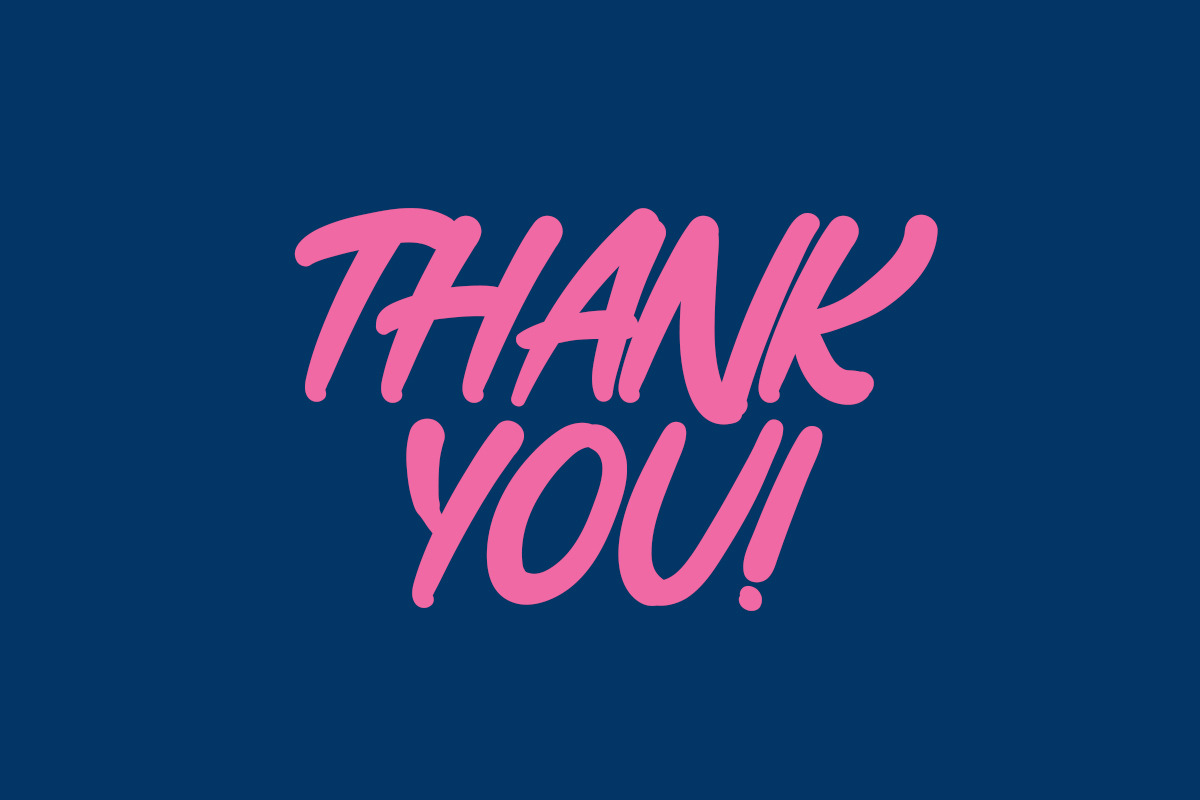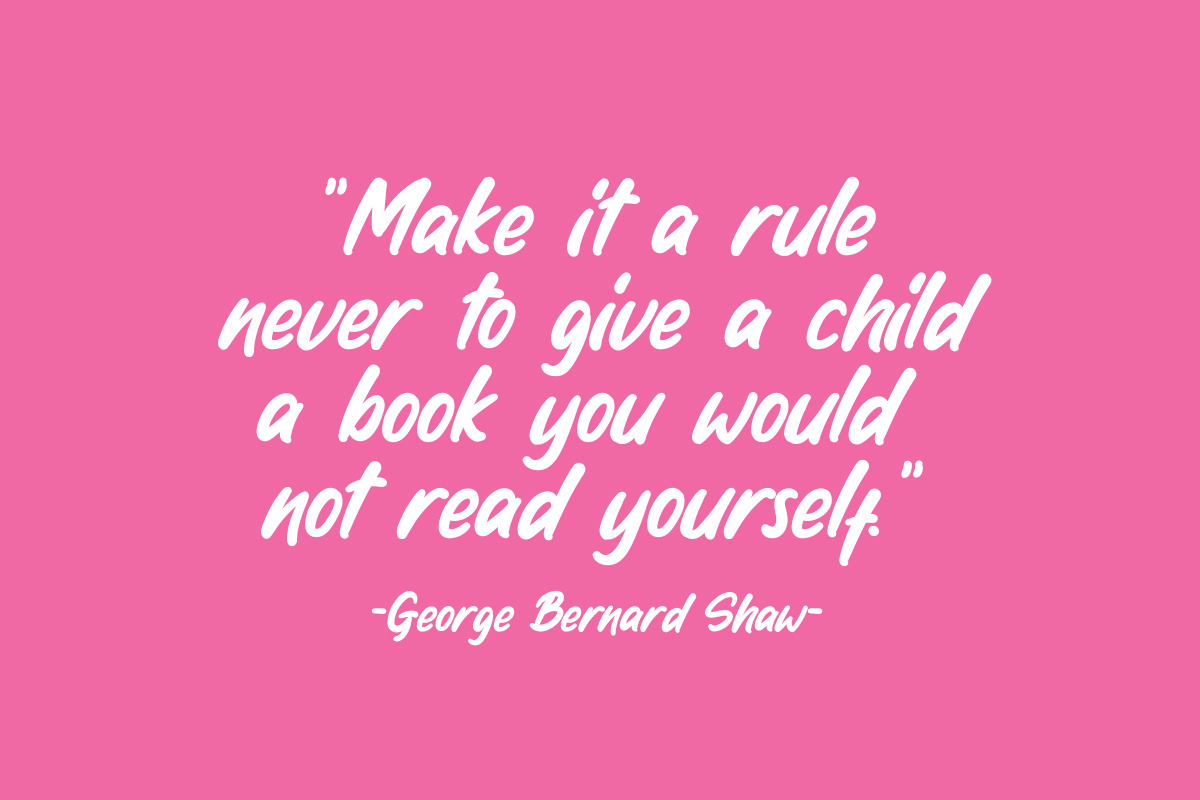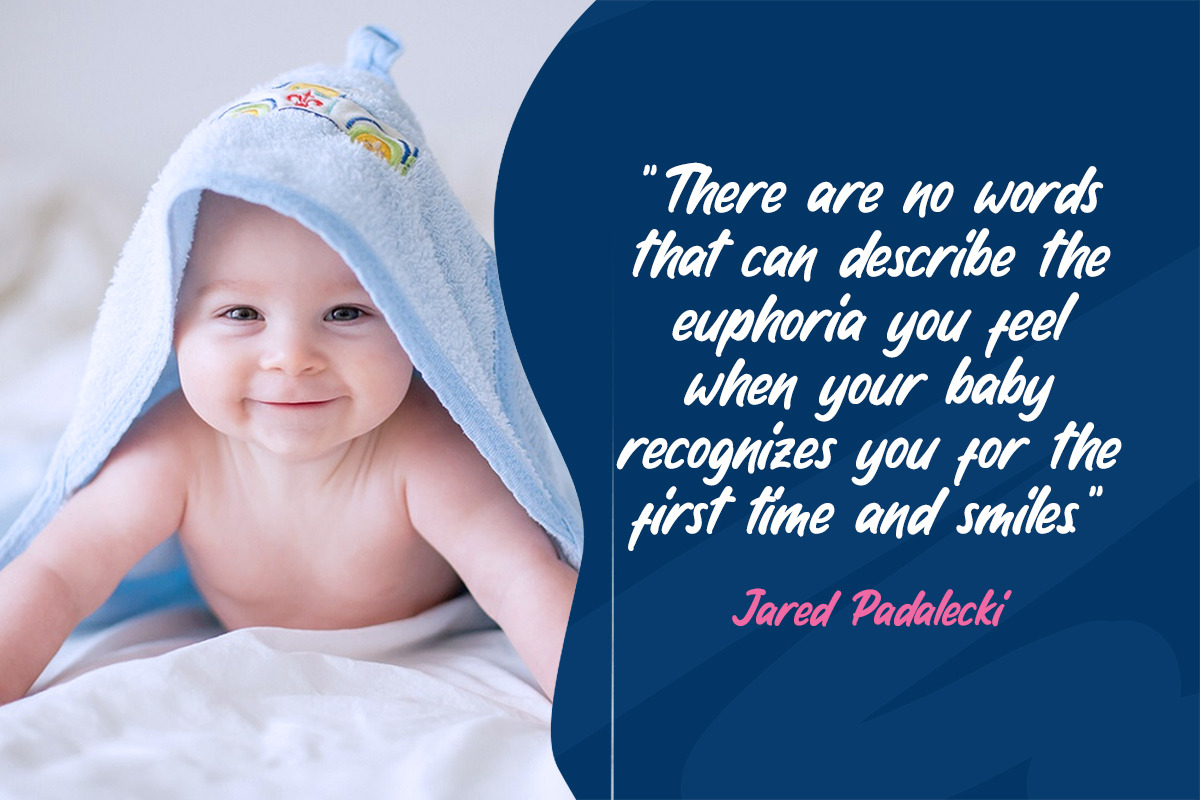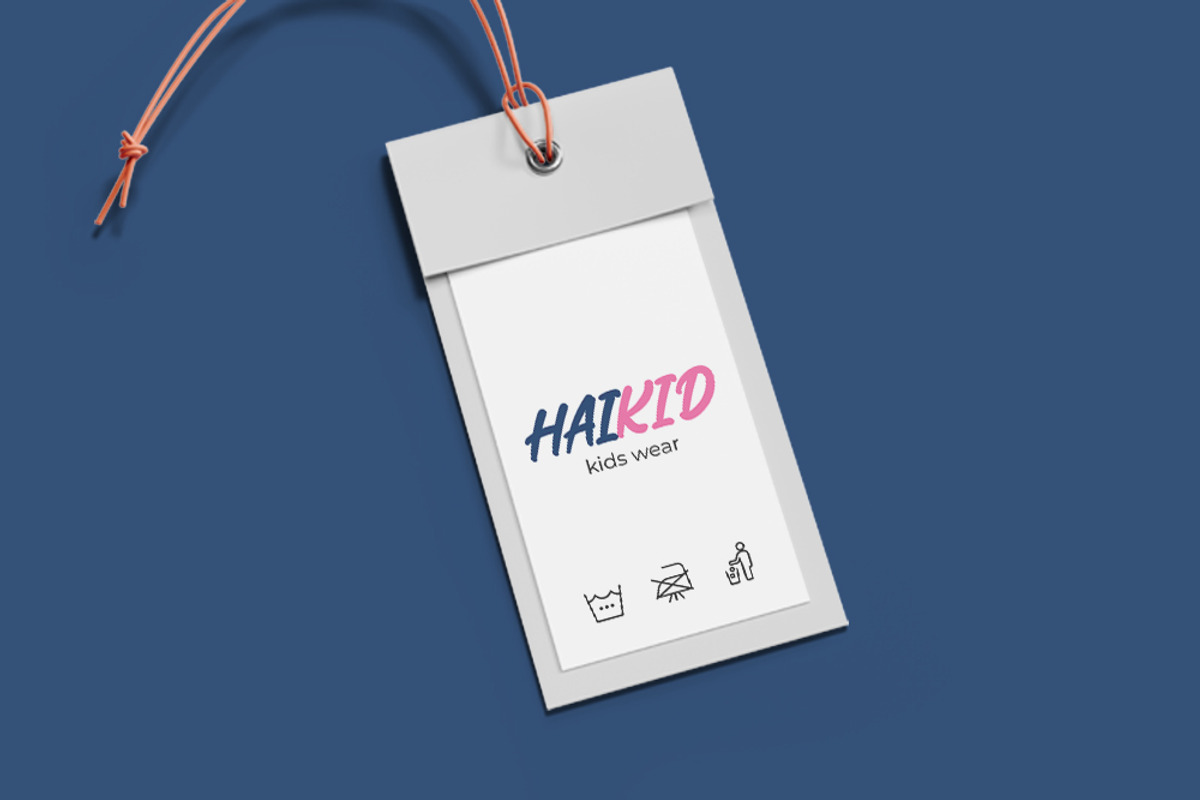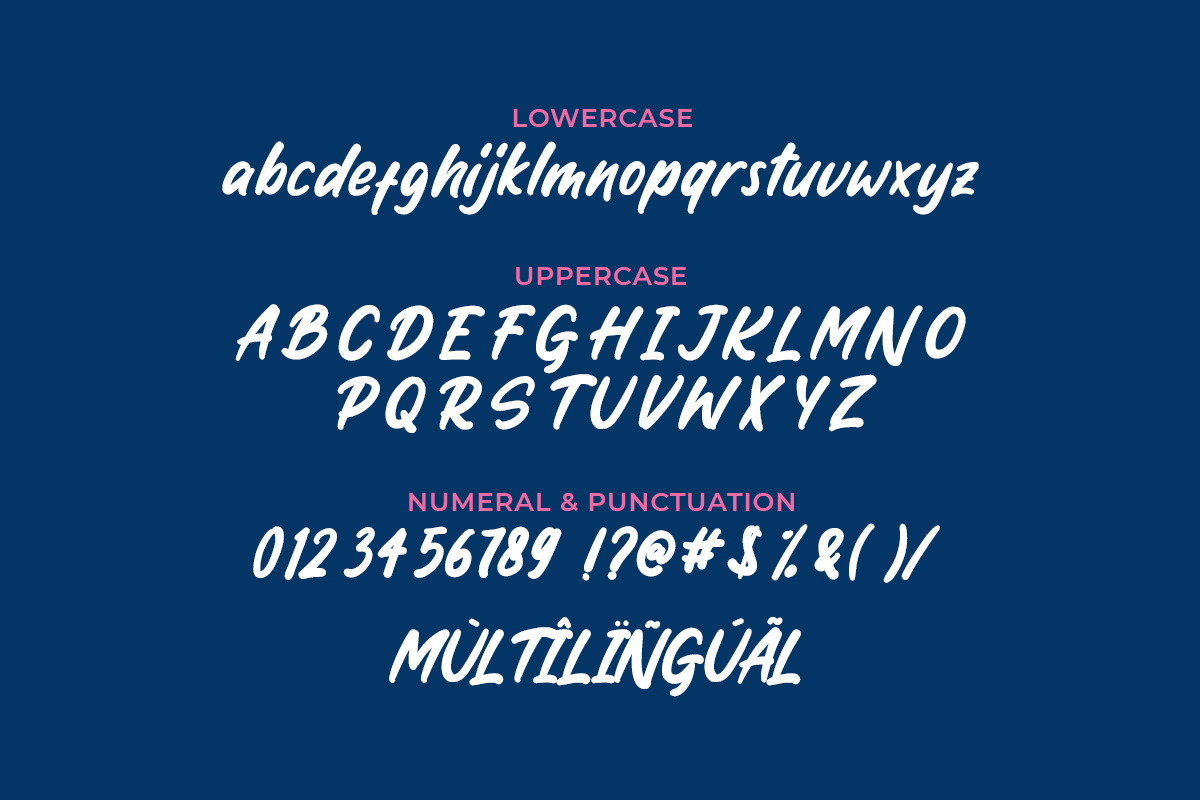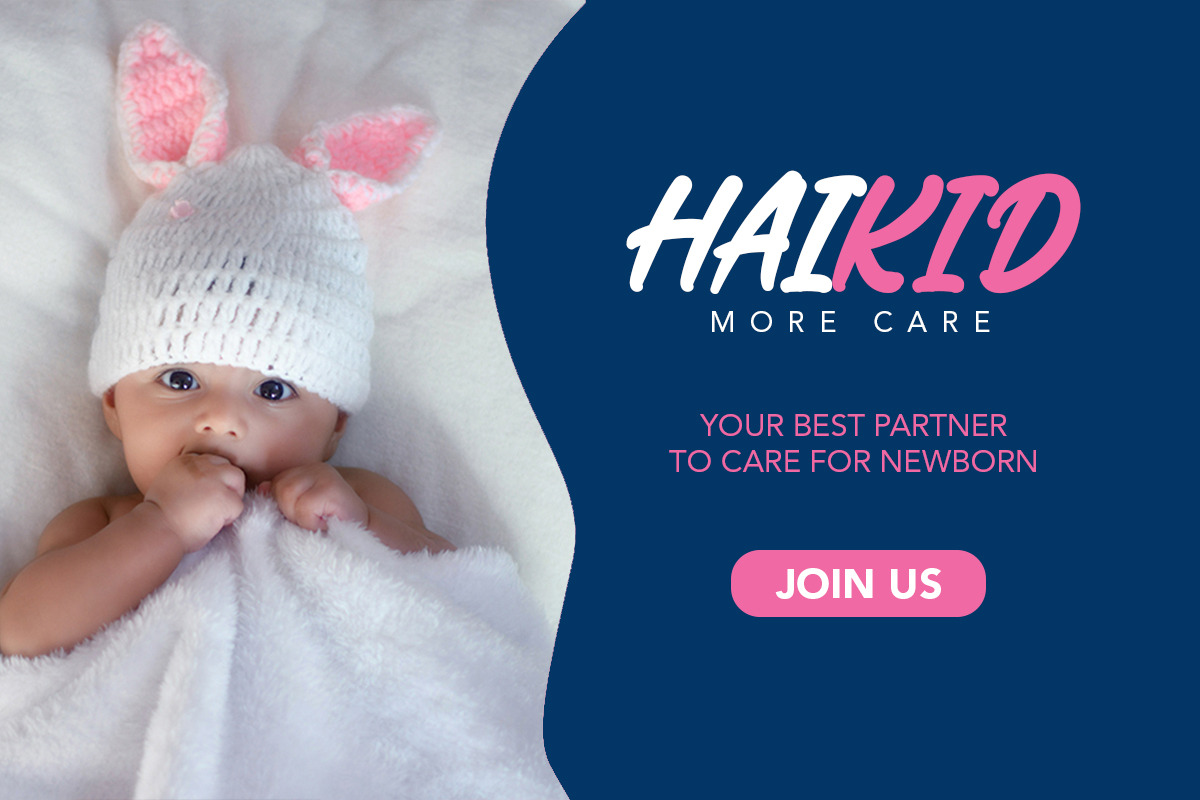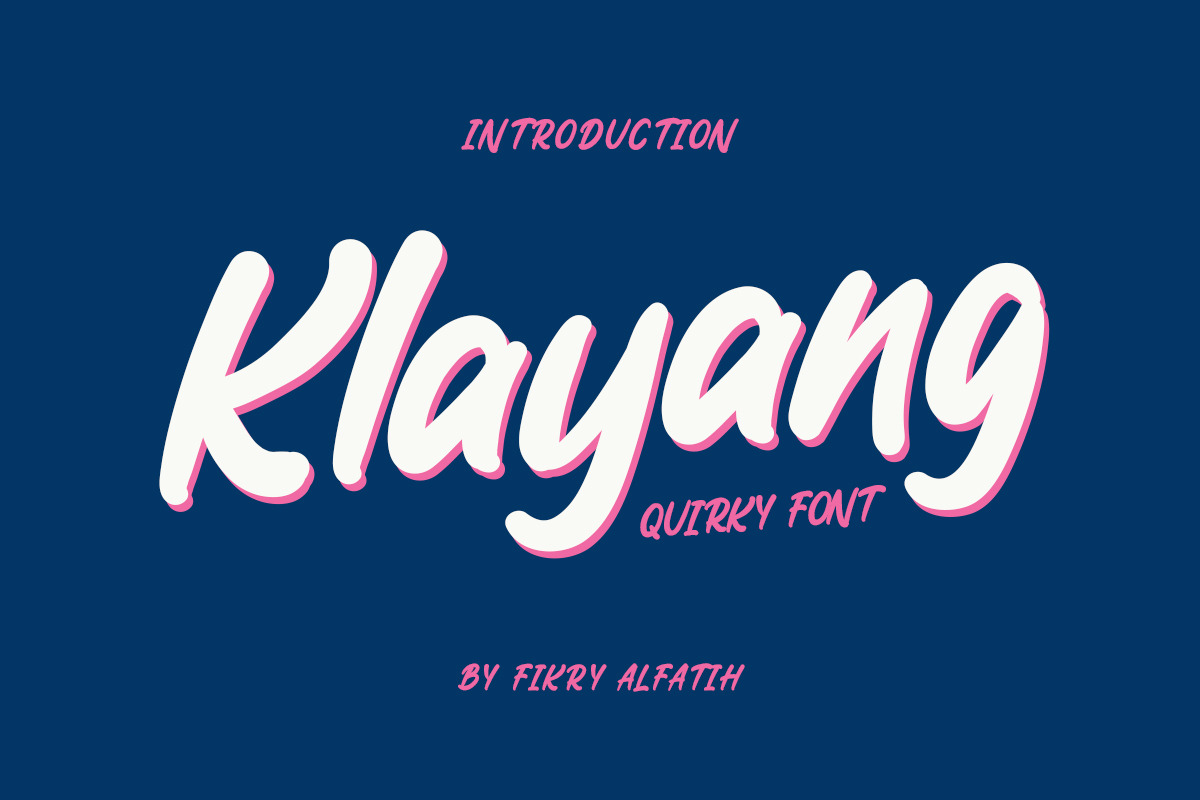
Klayang - Quirky Font
Klayang is a handwritten quirky font that combines fun and playful glyphs. This font provides a luxurious hand-drawn effect that’s guaranteed to add great appeal to your quotes, logo designs, brand image, product packaging, merchandise & social media posts.